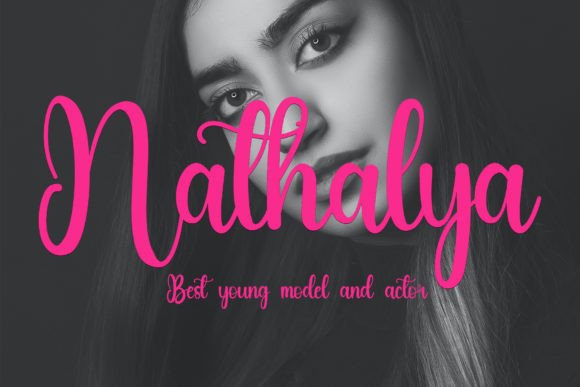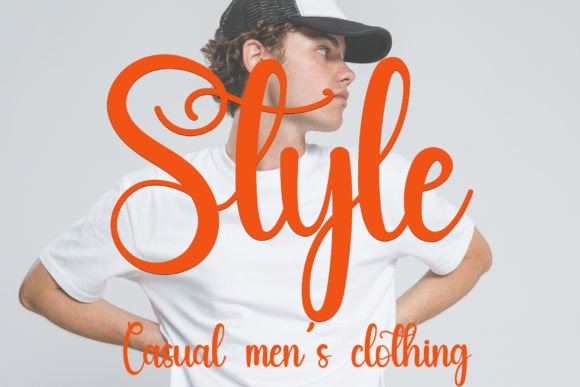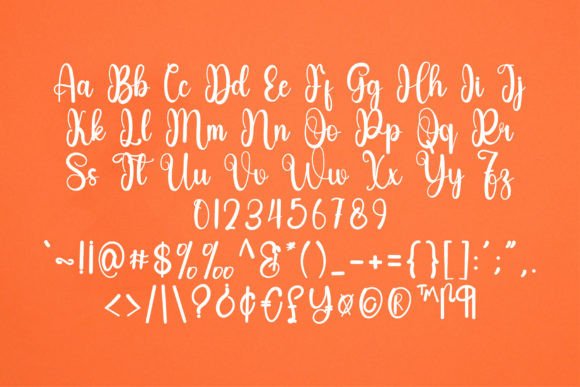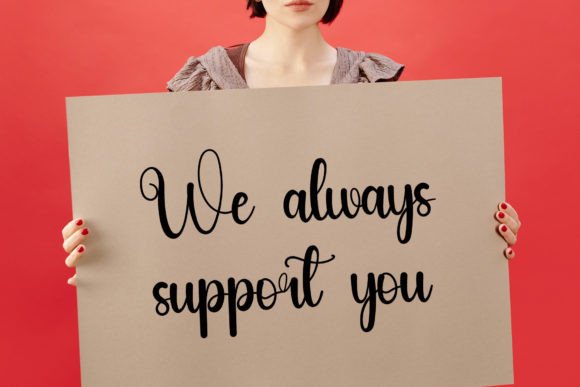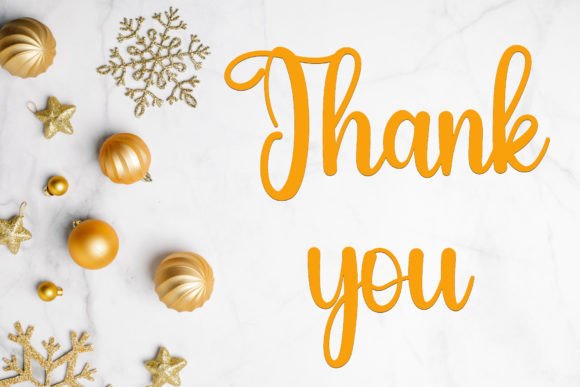
Introduction to Sloping Font
Sloping is a neat and stylish handwritten font crafted with a touch of elegance, perfect for your favorite projects.
Fall in love with its distinct and timeless style, and use it to create a wide variety of designs such as templates, wedding invitation cards, crafts, birthday cards, logos, nameplates and more .
Sloping Font offers exceptional quality and versatility, making it a valuable addition to your design toolkit. Whether you’re creating for personal projects or commercial use, Sloping Font delivers professional results.